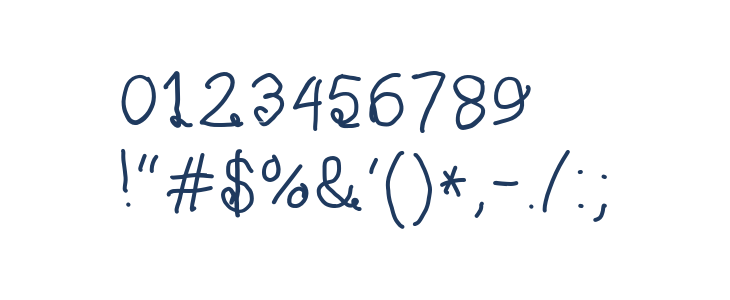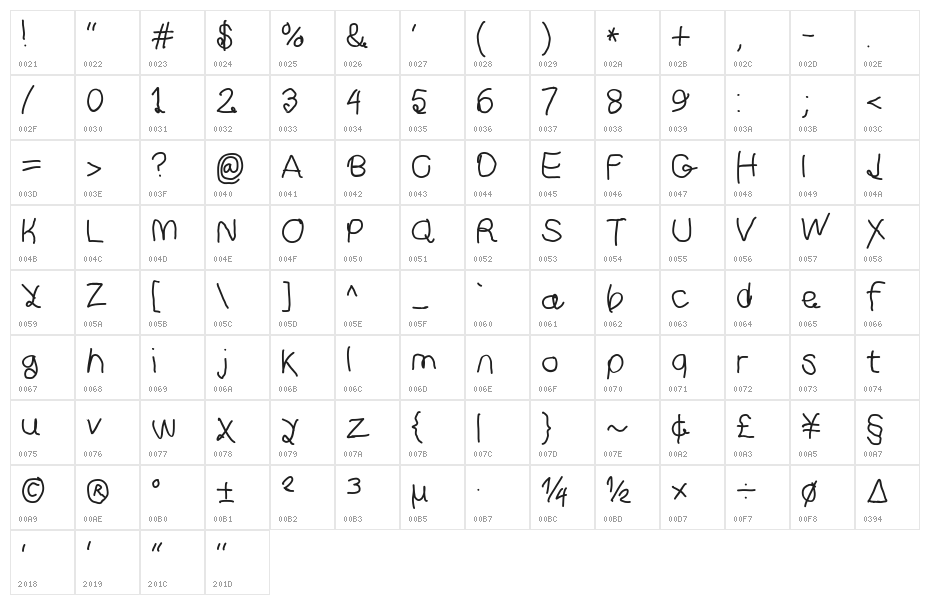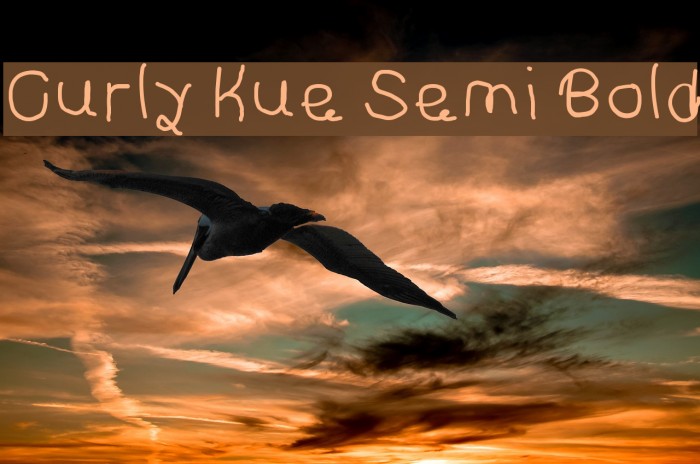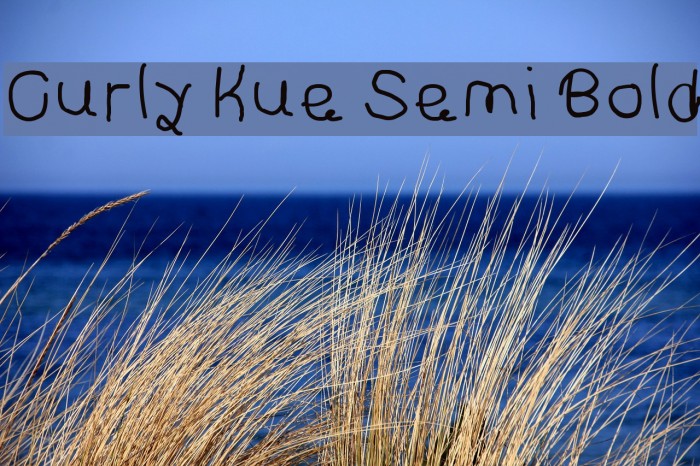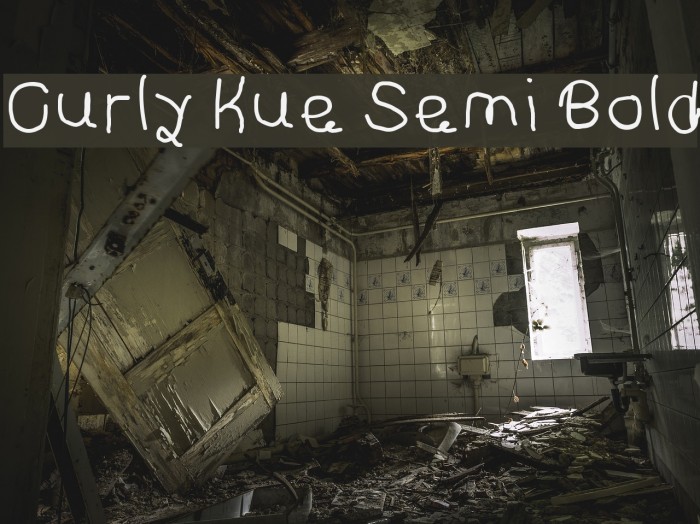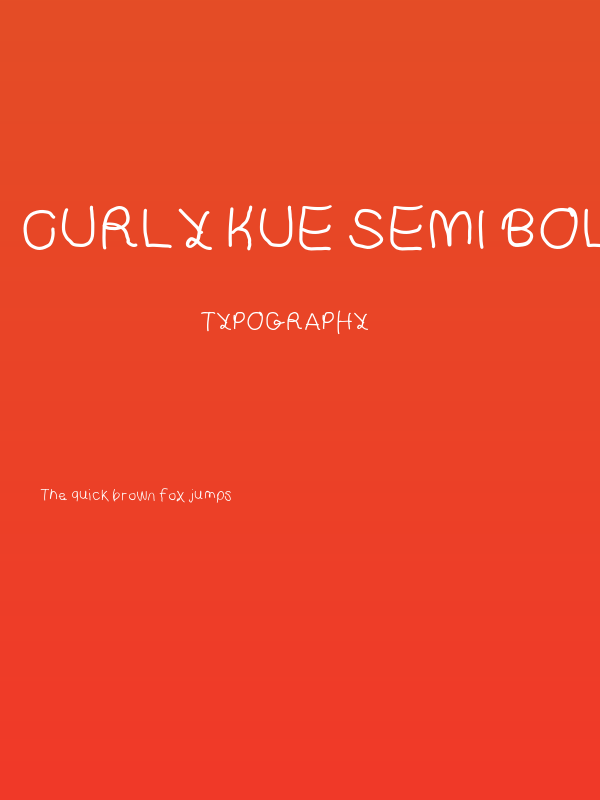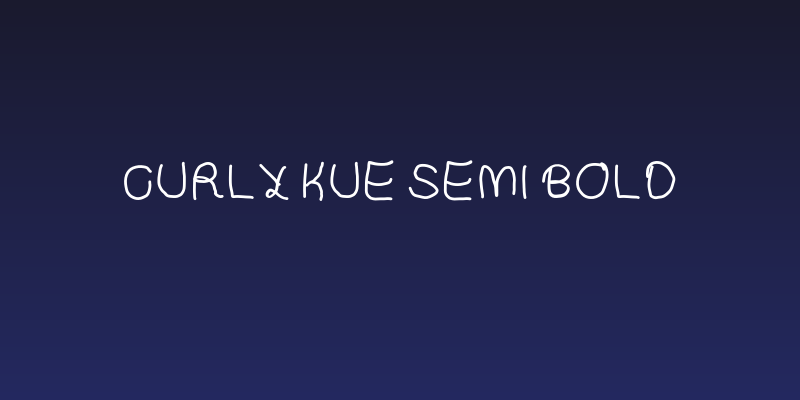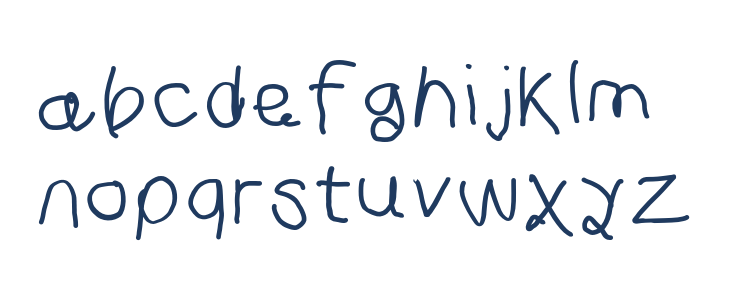
Curly Kue Semi Bold Font
Curly Kue Semi Bold Description
This font features a playful and whimsical style with a handwritten appearance. The characters are slightly irregular, adding a personal touch to the text. The strokes are smooth and rounded, giving it a friendly and approachable feel. The uppercase and lowercase letters maintain a consistent flow, while the numerals and special characters complement the overall design. This font is ideal for projects that require a casual and informal tone, such as children's books, greeting cards, or creative branding.
| Overall Style | Casual, Whimsical |
| Proposed Projects | Children's books, greeting cards, creative branding, informal invitations. |